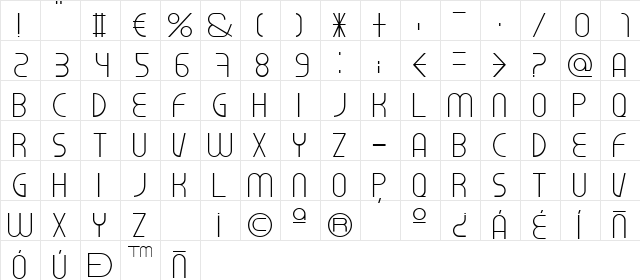
BARCO. D.A NORMAL Condensed
Design Context for BARCO. D.A NORMAL Typeface
BARCO. D.A NORMAL takes a measured approach to typography — its balanced proportions and neutral character make it a reliable workhorse for both digital and print work. The condensed width makes it efficient for tight spaces without sacrificing legibility.